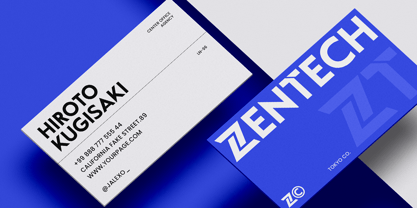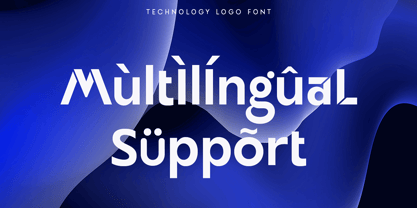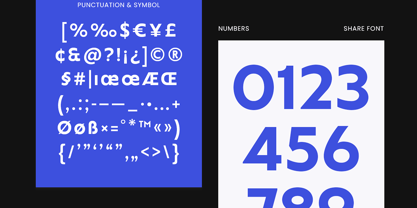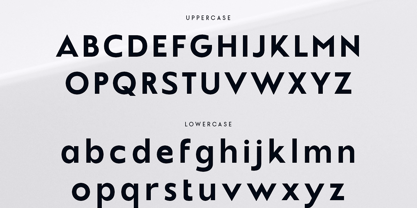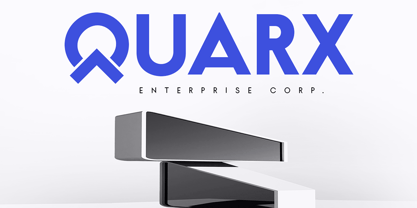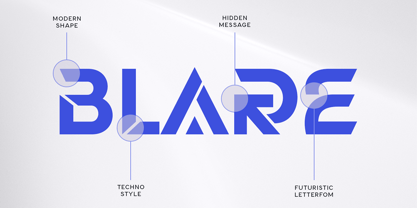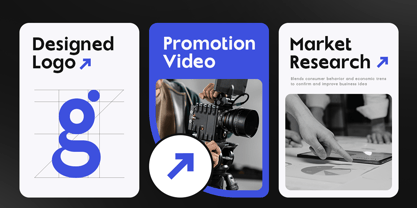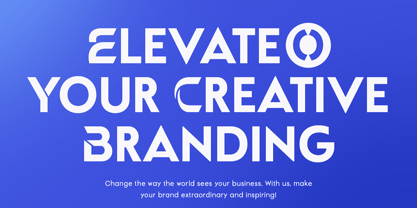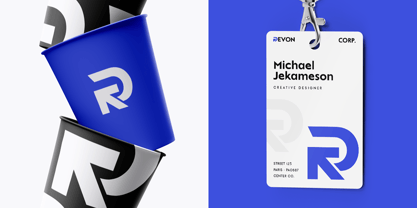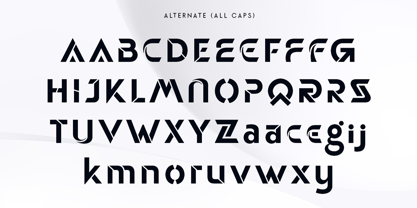
Silvoria – Modern Technology Logo Font
Silvoria is a modern technology logo font designed to bring innovation, precision, and contemporary style to your branding projects. Inspired by futuristic interfaces, clean geometry, and modern digital design, Silvoria features sleek letterforms with distinctive alternative characters that create a bold and professional visual identity. Its minimalist structure and balanced proportions make it an excellent choice for brands that value clarity, sophistication, and forward thinking design.
Perfect for technology companies, software startups, AI platforms, fintech businesses, digital agencies, mobile applications, websites, product packaging, corporate branding, presentations, and creative marketing materials, Silvoria delivers a refined and memorable appearance across both print and digital media. Its clean lines and modern aesthetic help establish a strong brand presence while maintaining exceptional readability.
Silvoria was crafted for designers who want typography that reflects innovation and confidence. The unique alternative characters provide creative flexibility, allowing you to build distinctive logos and custom brand identities with ease. Whether you are launching a cutting edge startup or refreshing an established technology brand, Silvoria offers the versatility and visual impact needed to communicate professionalism and modernity.
With its futuristic personality and premium craftsmanship, Silvoria transforms ordinary text into a striking branding element that captures attention and leaves a lasting impression. It is an essential addition to any designer's collection for creating clean, modern, and technology driven visual identities.
Silvoria Font Features:
• Unique alternative characters
• Modern technology logo style
• Uppercase and lowercase letters
• Numerals, punctuation, and symbols
• OpenType features
• Multilingual support
• Perfect for technology, software, startups, branding, websites, and digital products
• Suitable for both print and digital projects